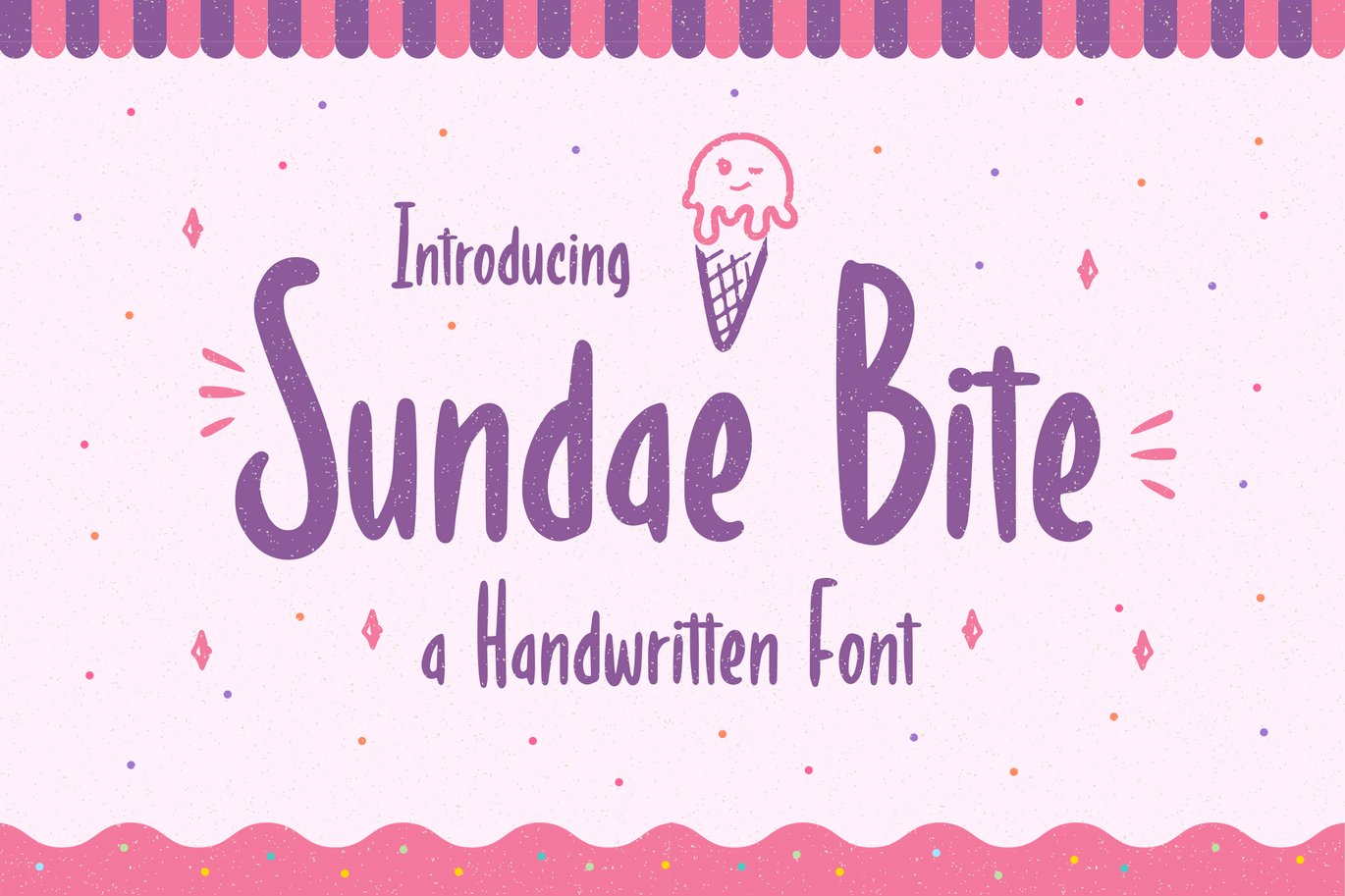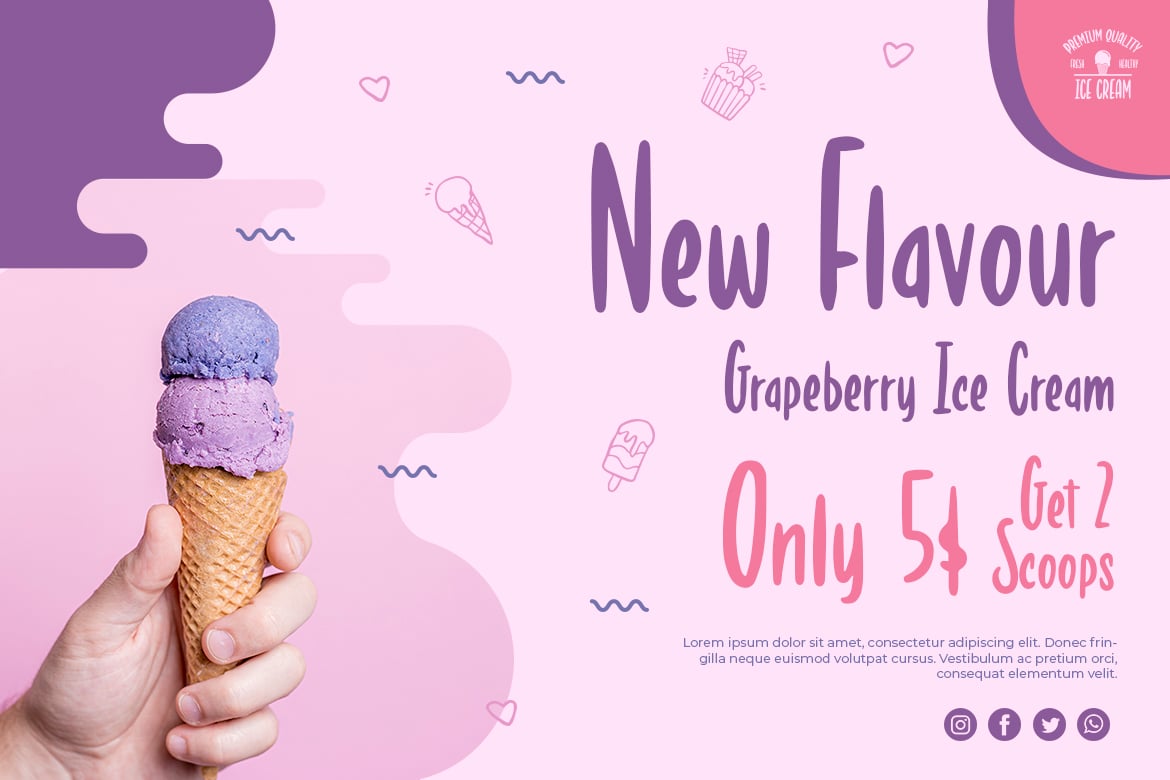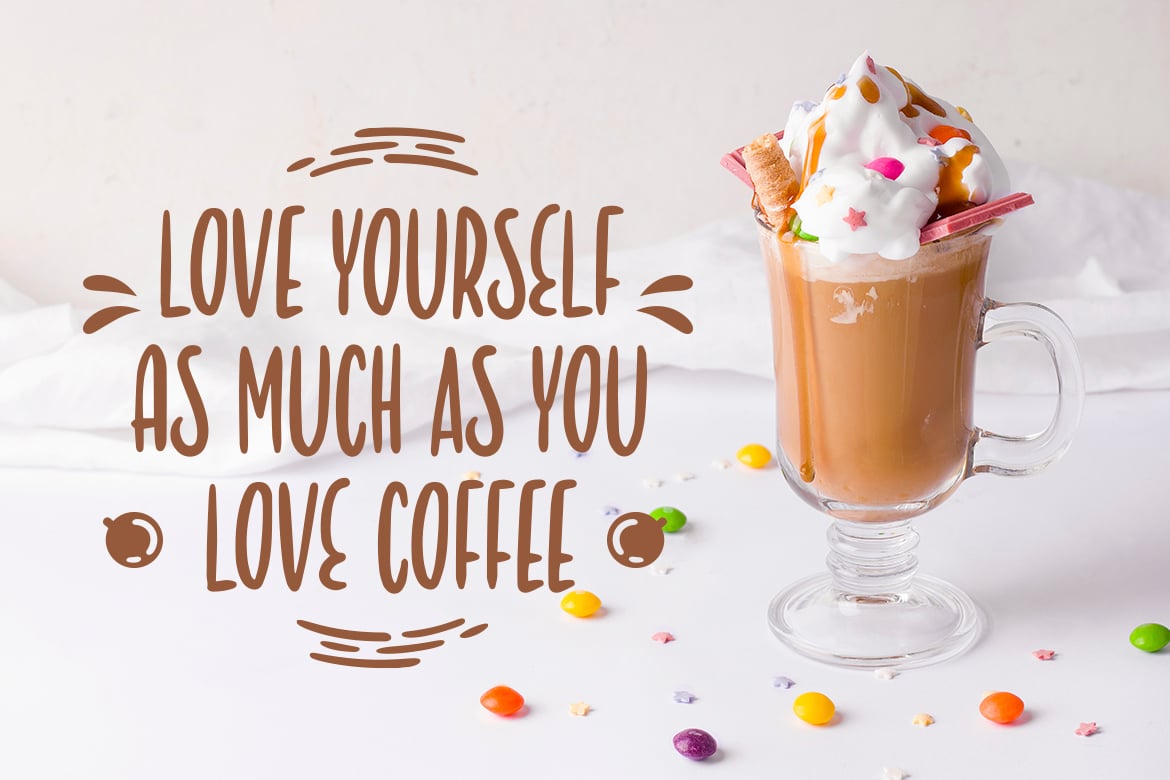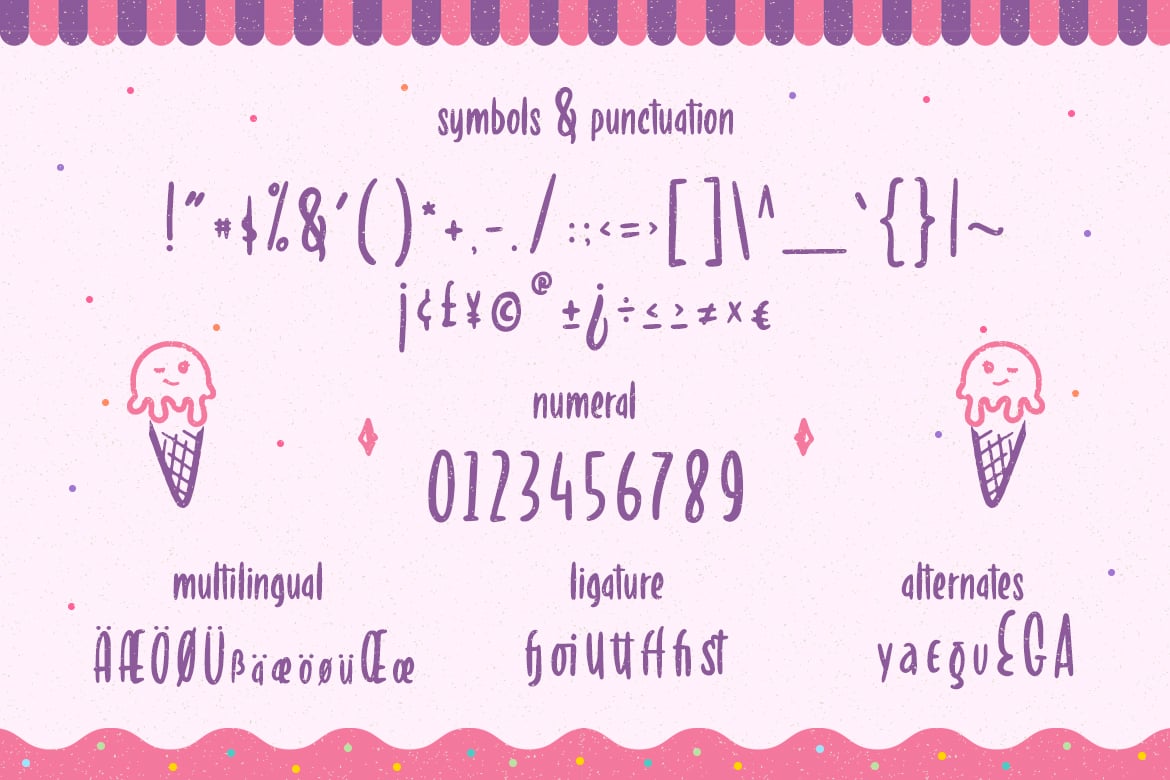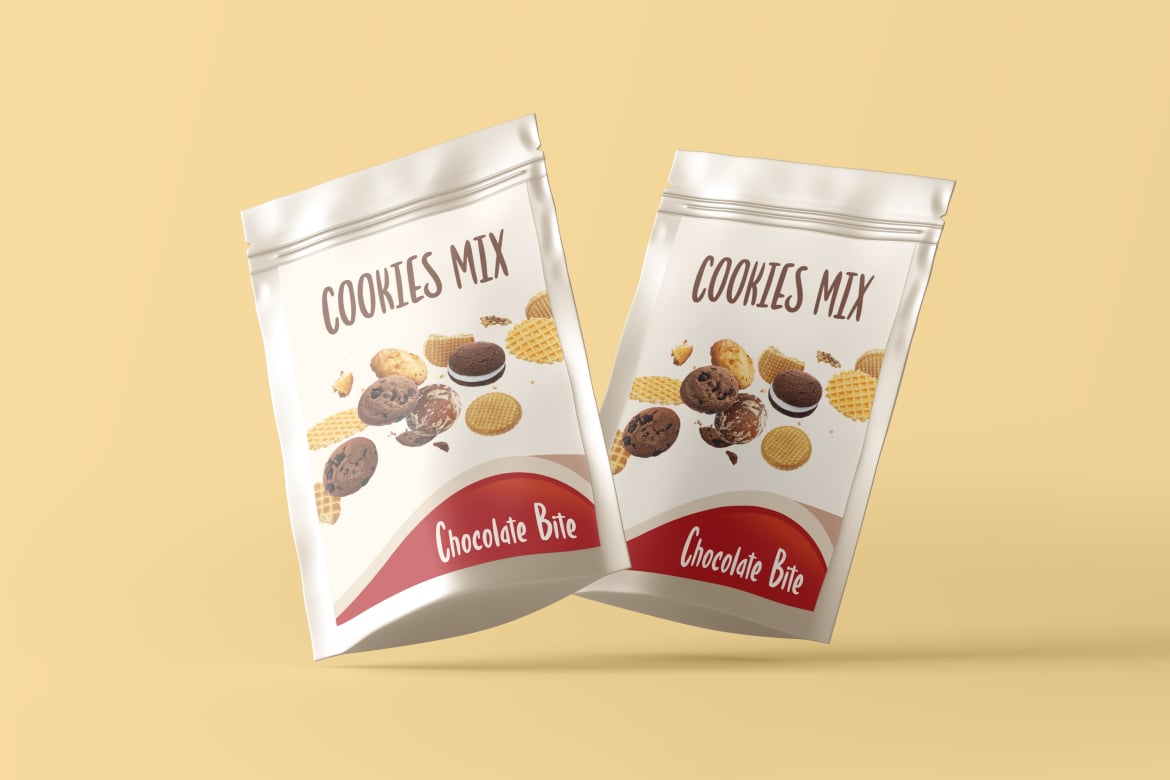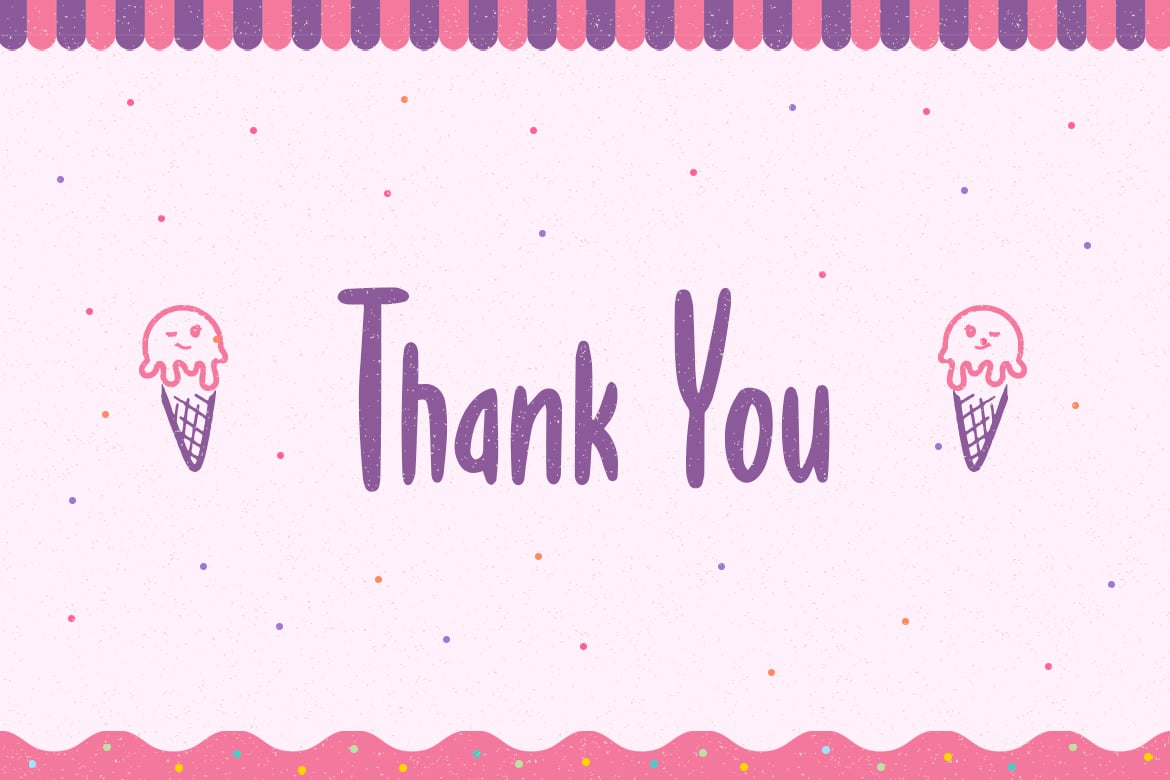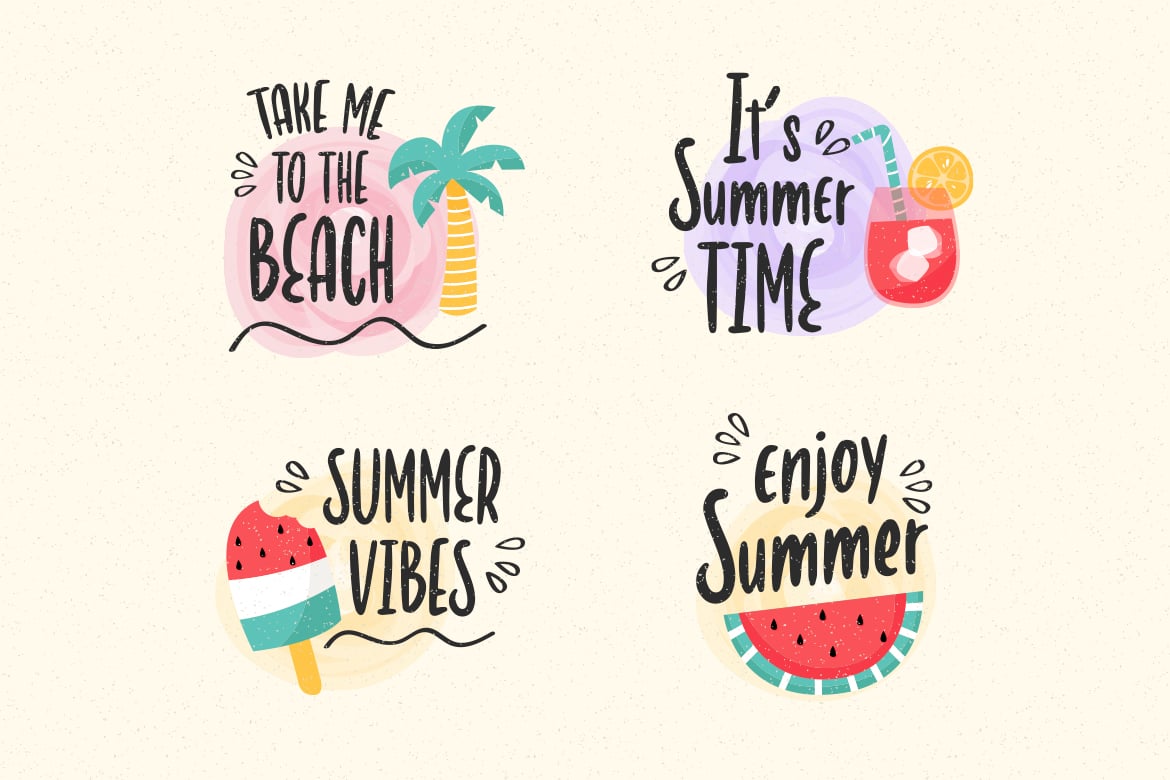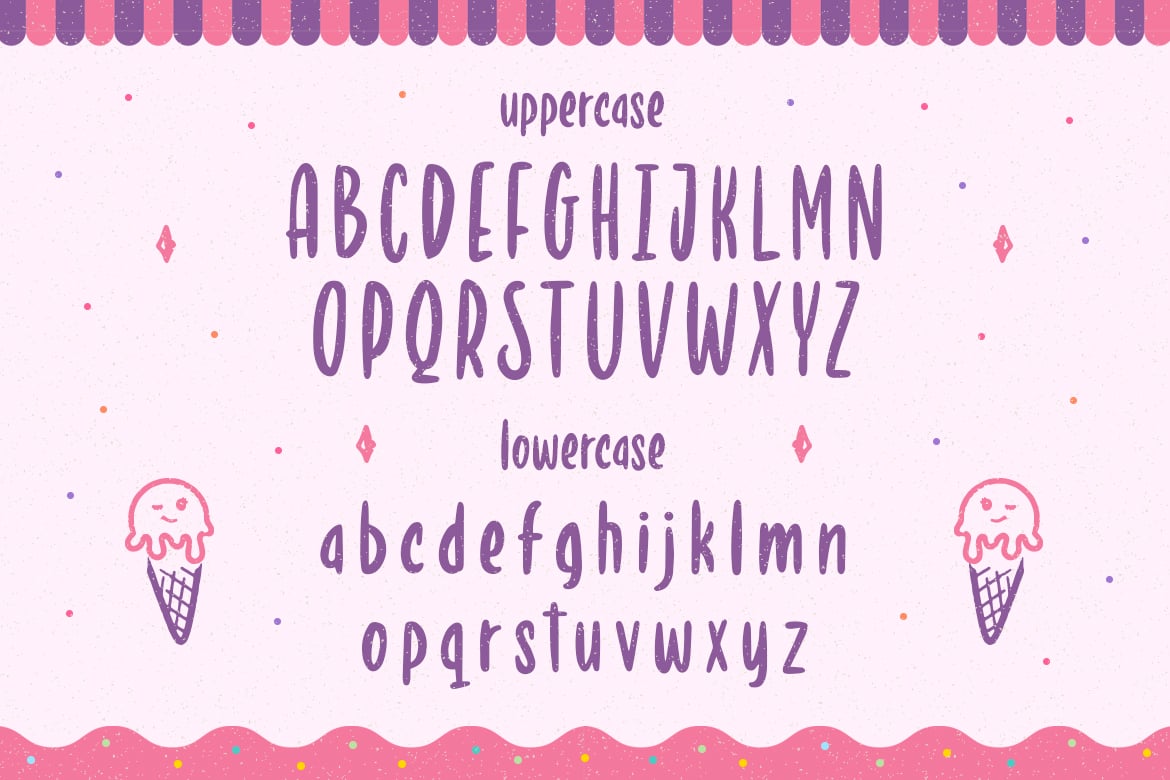
Sundae Bite – Fun Handwritten Font
Sundae Bite is a display font with an incredibly adorable charm. Get inspired by its whimsical feel, and turn any creative project into an eye-catcher! Perfect for party invitations, printed quotes, standout packaging, or adorable designs! You can even use it to create amazing headings, logos, menus, and social media graphics. Also, it Suited for Kids Theme and many more!